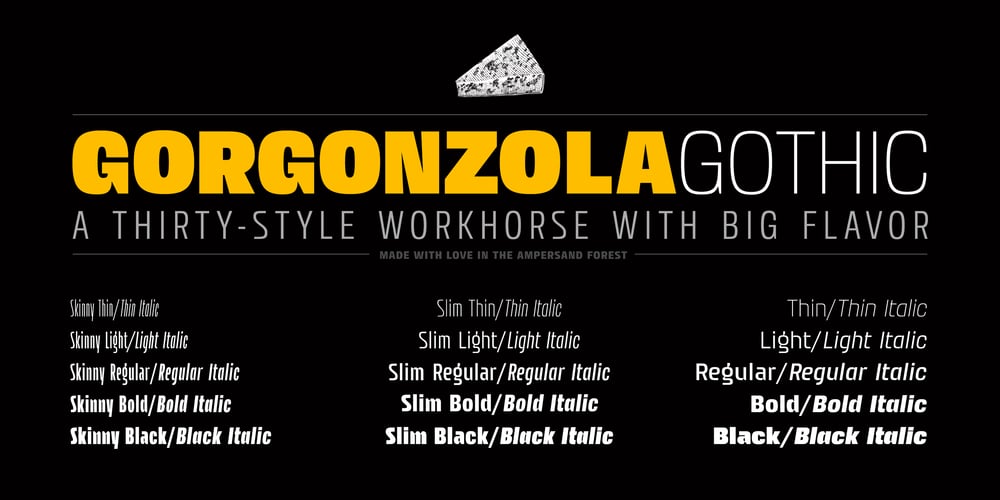
Gorgonzola Gothic
Gorgonzola Gothic font
Gorgonzola Gothic Font Family was designed by DC Scarpelli and published by The Ampersand Forest. Gorgonzola Gothic contains 30 styles and family package options. Gorgonzola Gothic is a geometrically-inspired gothic sans serif family that’s robust and versatile. Inspired by the geometric quirkiness of IxD (also by The Ampersand Forest), Gorgonzola Gothic expands into a thirty-style family that works for everything from branding to text.It further mitigates IxD’s quirkiness by offering two options in the round and shouldered lowercase glyphs. The standard letterforms, like IxD, have notched joins, giving them an assertive, almost futuristic look. The alternates of those letterforms (housed in Stylistic Set 01, and available as immediate hoverable glyph options in the Adobe Suite) are more conventional (as are the SS01 ampersand, Q, S, a, and s).In this way, Gorgonzola Gothic offers the best of both worlds: a flavorful, slightly futuristic family (in the same world as geometric classics like Eurostile) and a workhorse gothic sans (like the Benton classics Franklin Gothic, News Gothic, etc.). Its three widths: Skinny, Slim, and Standard, give it a wide range of applications, from display to body.Gorgonzola Gothic makes a statement with strength and sureness.